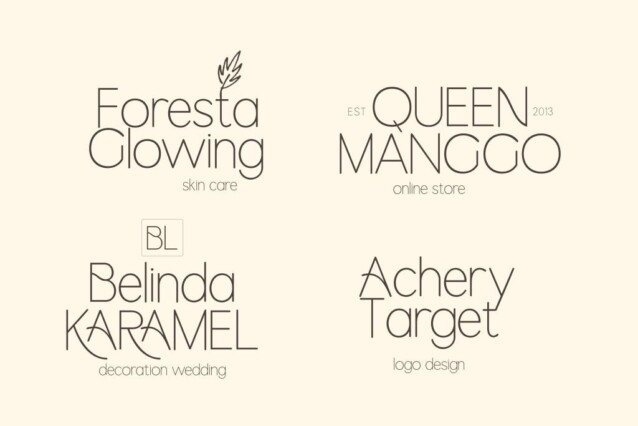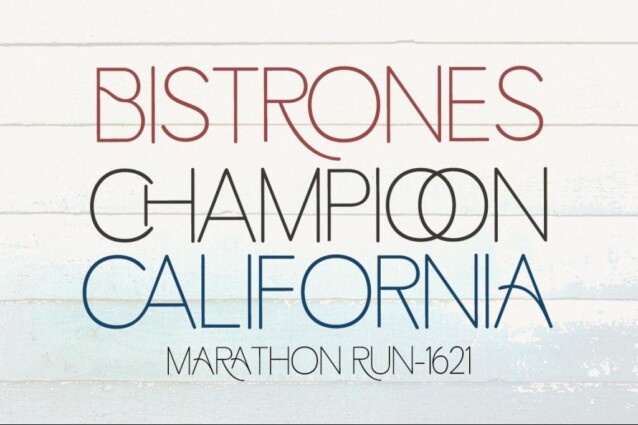
Radenes Font
Radenes Font is a modern elegant serif typeface crafted & designed by gianstudio12. This font looks very simple, clean, and elegant. Specially designed by skilled hands makes this font is the perfect fit for all your big projects. It’s perfect for logotypes, branding, monograms and wedding invitations, blog headlines, and more.